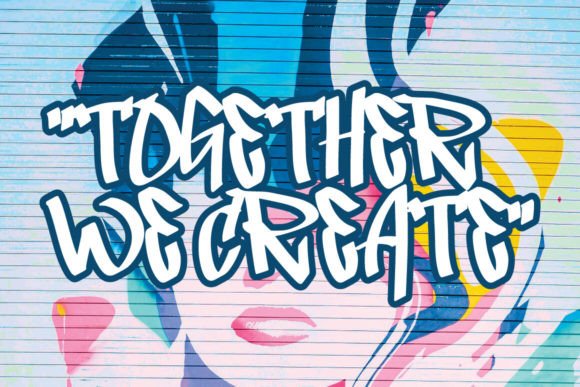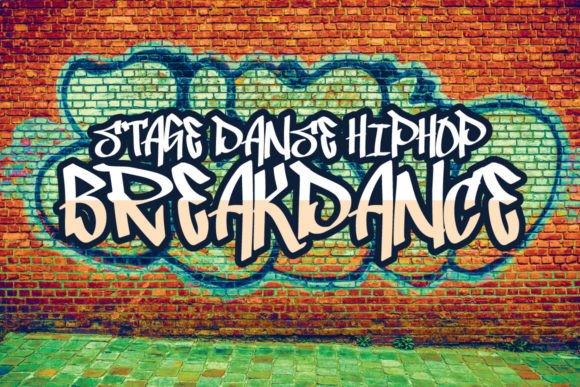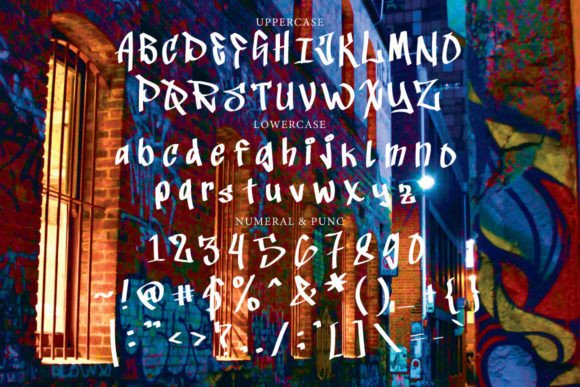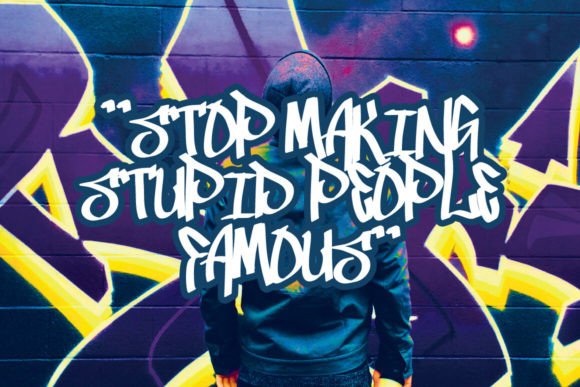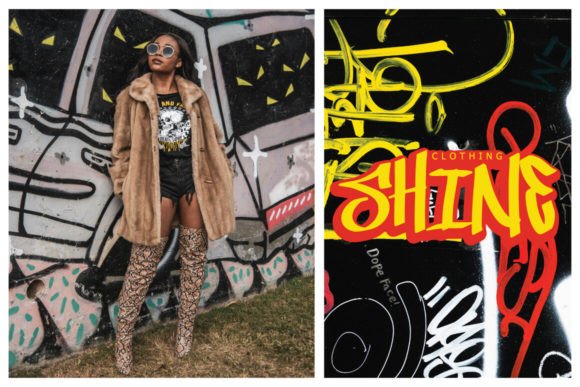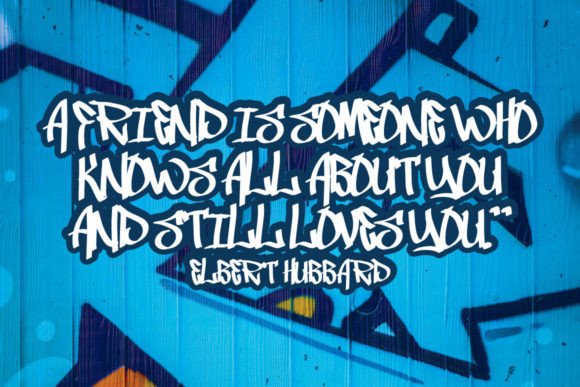
Introduction to Pigame Font
Have you ever been brainstorming for a creative project and suddenly, a burst of inspiration hits you – the perfect font to make your design stand out from the crowd? For designers, finding that elusive font can be a game-changer. That’s where the Pigame Font comes in, a high-quality display font inspired by the vibrant world of street art calligraphy.
With its extensive collection of 130+ glyphs, Pigame Font is the perfect addition to your design arsenal. Its unique style is not only visually striking but also versatile, making it suitable for a wide range of projects, from movie titles to book covers, and even logos. Whether you’re a seasoned designer or just starting out, this font is sure to elevate your creative ideas and leave a lasting impression.
Key Features of Pigame Font
- High-quality design: Pigame Font is a unique and creative design resource perfect for any project, from advertisements to websites and more.
- Transparent background: This feature makes it easy to customize and integrate into your design without any background distractions.
- Perfect for creative projects: Whether you’re working on a logo, brochure, or website, Pigame Font is an excellent choice due to its unique and creative design.
- High-quality and professional design: Pigame Font is designed to provide a high-quality and professional look to any project, making it an ideal choice for businesses and designers.
Honest Review: Pigame Font
As a designer, I’m always on the lookout for high-quality design resources to elevate my creative projects. Recently, I came across the Pigame Font, which caught my attention with its unique and playful style.
What works well with the Pigame Font is its versatility. I’ve used it for both digital and print projects, and it’s performed exceptionally well in both mediums. The font is also highly customizable, making it easy to adapt to different design styles.
Some of the key features that I appreciate about the Pigame Font include:
- High quality design that’s perfect for creative projects
- Transparent background, allowing for easy background changes
However, I did encounter some limitations with the Pigame Font. At times, the font can be a bit too playful, making it challenging to use for more formal projects.
Overall, I’m impressed with the Pigame Font and would highly recommend it to designers looking for a fun and creative font to add to their design arsenal.
Pigame Font: A High-Quality Design Resource
Experiment with different font sizes, colors, and styles to create a unique look for your design project.
Use the transparent background feature to create a seamless design that blends with your background.
The Pigame Font is perfect for creative projects such as logo design, infographics, and social media graphics.
It’s also great for designing business cards, brochures, and other marketing materials.